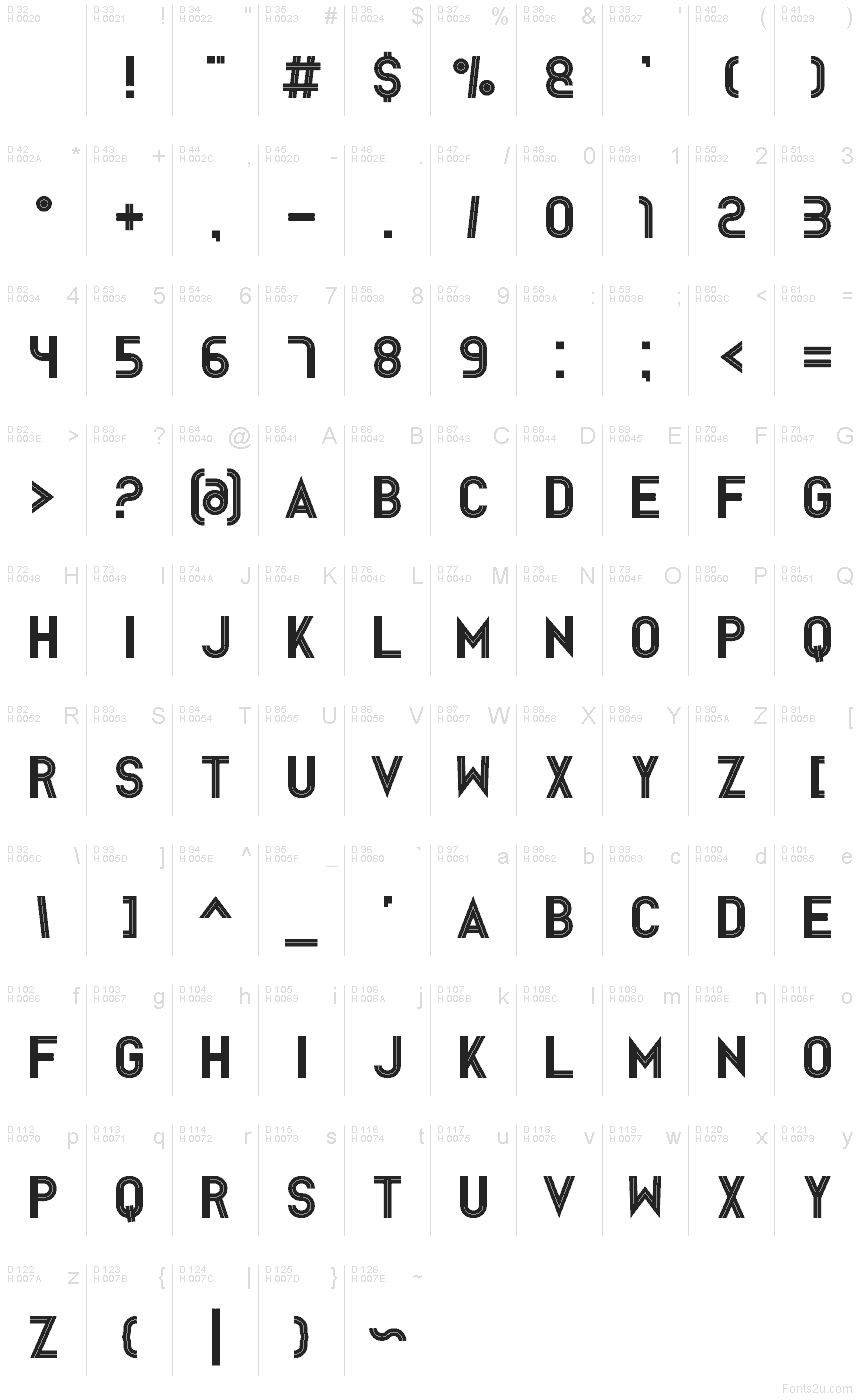
Mabroc
Mabroc font by Graphicfresh is a free retro display typeface with clean lines, great geometry, and a striking overall presence. Every letter brings an equally strong vibe seen in famous modernist designs created by the Bauhaus. All components are made to look as simple and straightforward as possible making this font one of its kind.
There is nothing similar to Mabroc when it comes to recreating classic vintage signage from the mid-20th century for use in packages, posters, or even logos. The symmetrical font is equally thrilling whenever used in website headers or magazine covers among other graphic design ideas.